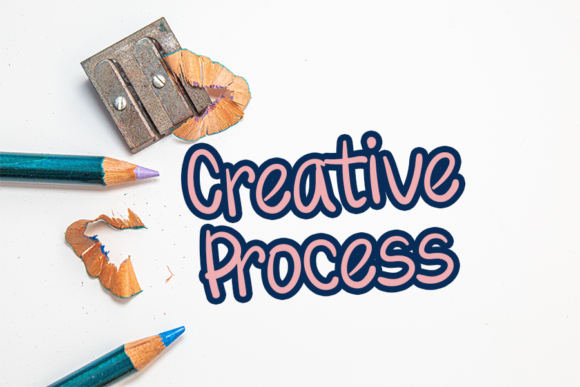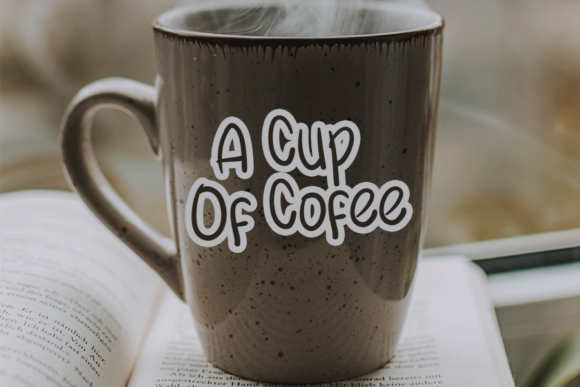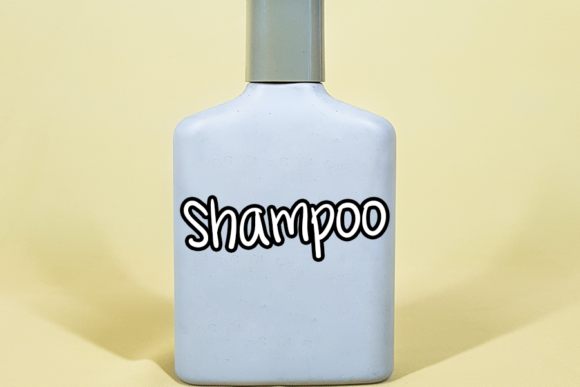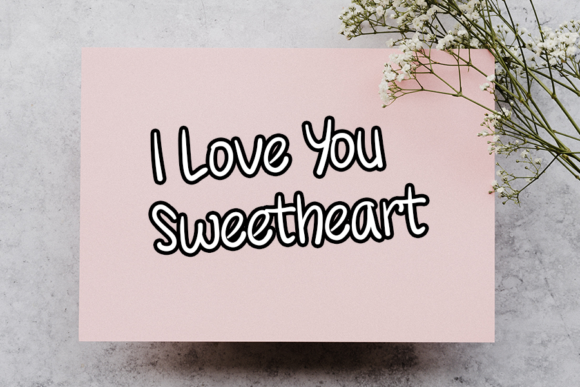
Baby Cat Font: The Purrfect Addition to Your Design Collection
Are you tired of using the same old fonts in your designs? Look no further than the Baby Cat Font, a stunning sans serif font with an authentic handwritten style that’s sure to capture the hearts of designers and crafters alike. With its playful and personalized touch, this font is perfect for a variety of design projects, from wedding invitations to logos and everything in between.
What Makes Baby Cat Font So Special?
Baby Cat Font is a unique and charming font that’s designed to add a personal touch to your designs. Its authentic handwritten style gives it a warm and inviting feel that’s perfect for creating designs that are both modern and nostalgic. The font’s sans serif design makes it easy to read and versatile enough to use in a variety of contexts, from digital designs to print materials.
One of the best things about Baby Cat Font is its versatility. It’s perfect for a wide range of design projects, including:
- Wedding invitations and wedding stationery
- Valentine’s Day cards and love letters
- Greeting cards for birthdays, holidays, and more
- Blog and website designs
Why Designers and Crafters Love Baby Cat Font
So why do designers and crafters love Baby Cat Font so much? Here are just a few reasons:
- Easy to read: Despite its handwritten style, Baby Cat Font is easy to read and understand, making it perfect for designs that require a personal touch.
- Playful and fun: This font is playful and fun, adding a touch of whimsy to any design.
- Versatile: Baby Cat Font can be used in a variety of contexts, from digital designs to print materials.
- Unique: This font is one-of-a-kind, giving your designs a unique and distinctive look.
How to Use Baby Cat Font in Your Designs
Using Baby Cat Font in your designs is easy. Here are a few tips to get you started:
- Pair it with other fonts: Baby Cat Font pairs well with other sans serif fonts, as well as script fonts and serif fonts.
- Experiment with colors: This font looks great in a variety of colors, from bright and bold to soft and pastel.
- Use it for headings and titles: Baby Cat Font is perfect for headings and titles, adding a touch of personality to your designs.
- Try it in digital designs: This font is perfect for digital designs, including social media graphics, blog posts, and website designs.
In conclusion, Baby Cat Font is a stunning sans serif font with an authentic handwritten style that’s perfect for designers and crafters looking to add a personal touch to their designs. With its playful and fun design, versatility, and ease of use, this font is sure to become a favorite in your design collection. So why wait? Download Baby Cat Font today and start creating designs that are both modern and nostalgic.
Key Features of Baby Cat Font
- Authentic handwritten style
- Sans serif design
- Easy to read
- Playful and fun
- Versatile
- Unique and distinctive
Where to Use Baby Cat Font
- Valentine’s Day cards and love letters
- Greeting cards for birthdays, holidays, and more
- Blog and website designs